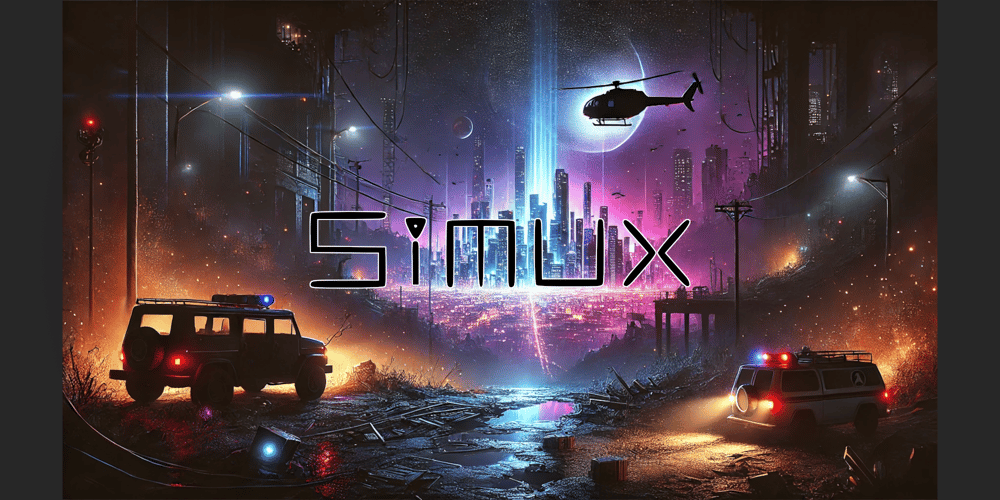
Simux Font Family was designed by Julian Cisneros and published by TutiFresh. Simux contains 1 styles and family package options. Futuristic sci-fi inspired font with dramatic composition. Aesthetically symmetric design, crafted on a pattern-based grid. Excellent for video games but also suitable for other professional industries or personal use.